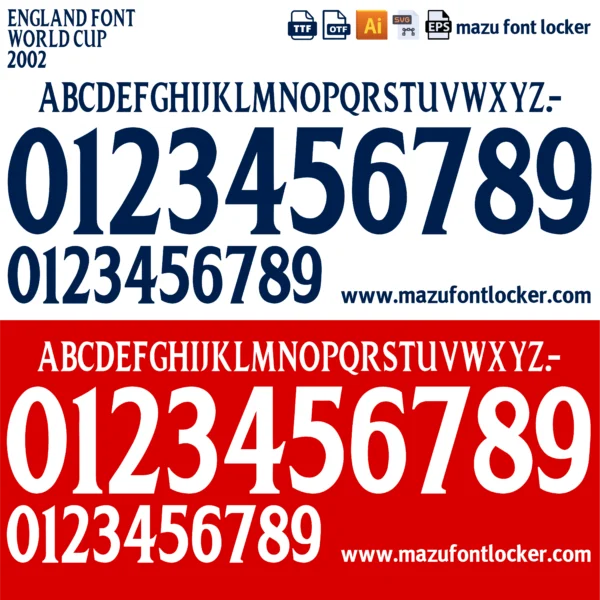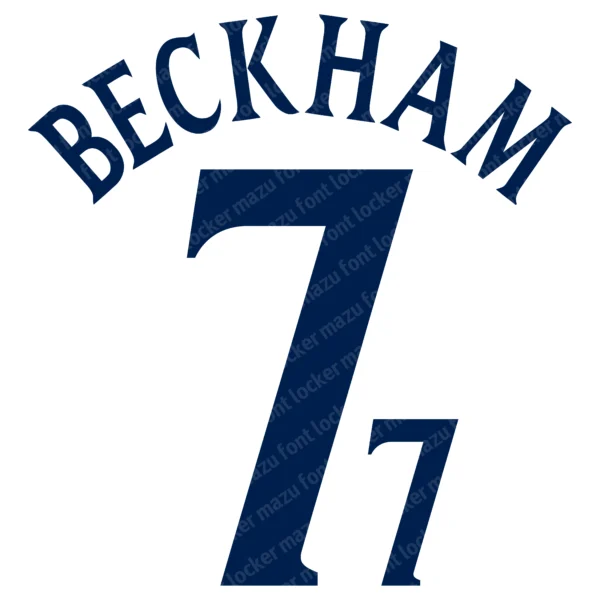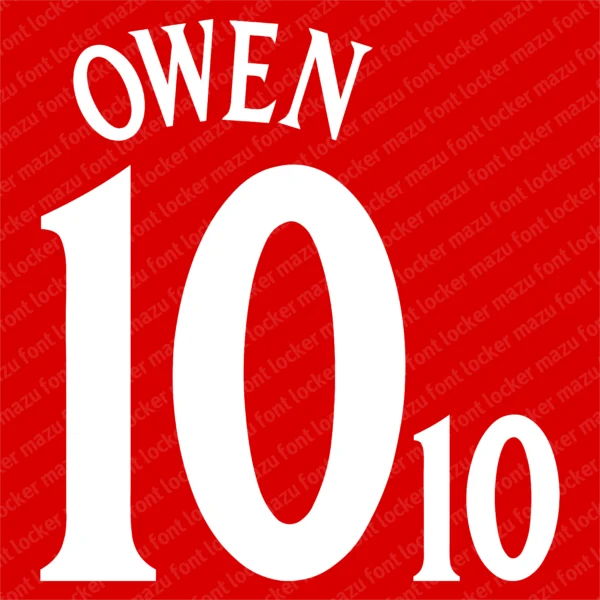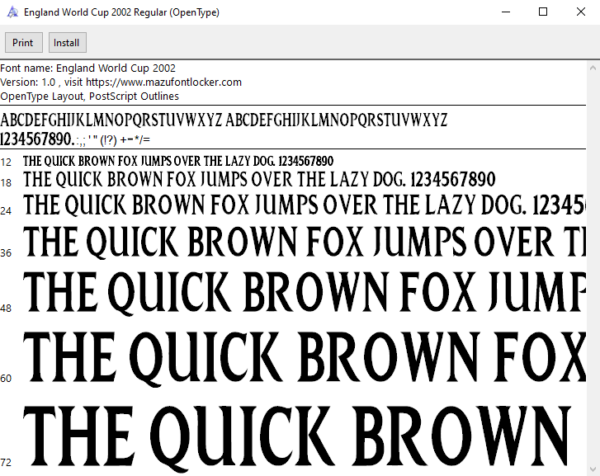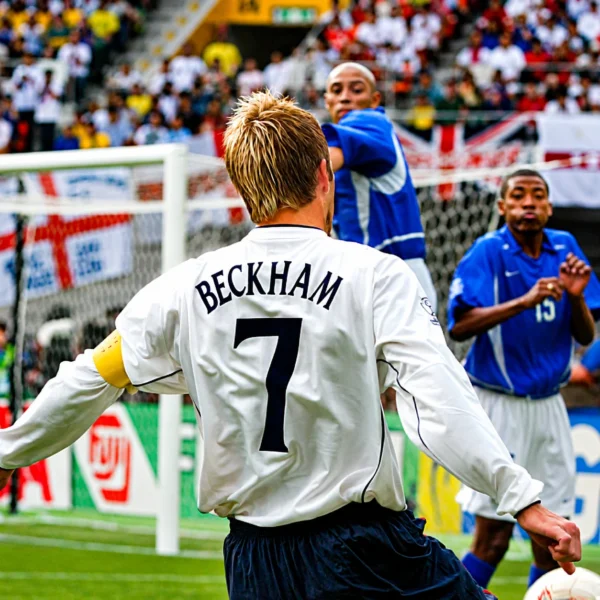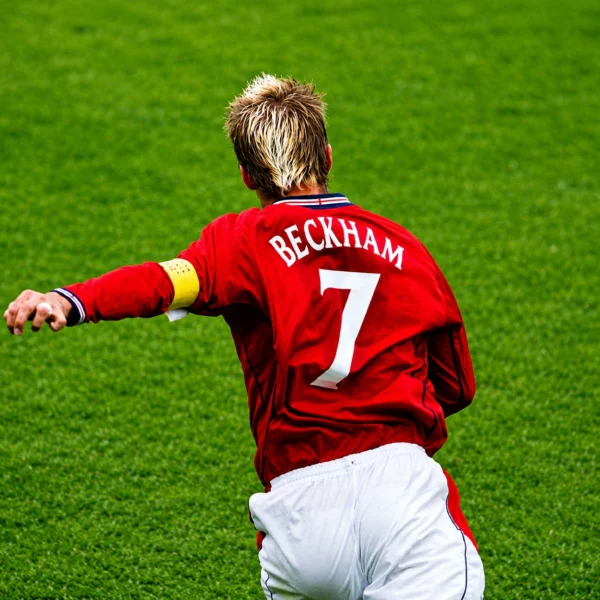
England World Cup 2002 Font Vector – Powerful Three Lions Premium Vector
England World Cup 2002 Font Vector – Authentic Three Lions Typeface
The England World Cup 2002 Font Vector is a premium typeface that accurately recreates the official match lettering worn by the England national team during the 2002 FIFA World Cup in Japan and South Korea. This high-quality vector font kit captures the bold, classic, and iconic typography that represents one of the most memorable campaigns in modern English football history.
Why Choose England World Cup 2002 Font Vector
This font stands out because of its sharp vector details and strong heritage identity. Every letter and number is crafted to match the exact style used on the players’ shirts during the 2002 World Cup. Whether you are making realistic kit templates or nostalgic football content, the England World Cup 2002 Font Vector gives your designs that authentic Three Lions look.
The letterforms in the England World Cup 2002 Font Vector are tall, bold, and highly readable. The strokes have a strong, clean weight with excellent edge definition that looks powerful on the back of jerseys while maintaining classic English elegance and clarity.
- Full uppercase A–Z and numbers 0–9 in authentic England 2002 style
- Special Three Lions crest glyph for accurate shirt number detailing
- Includes the exact crest glyph placement used under player numbers
England World Cup 2002 Campaign